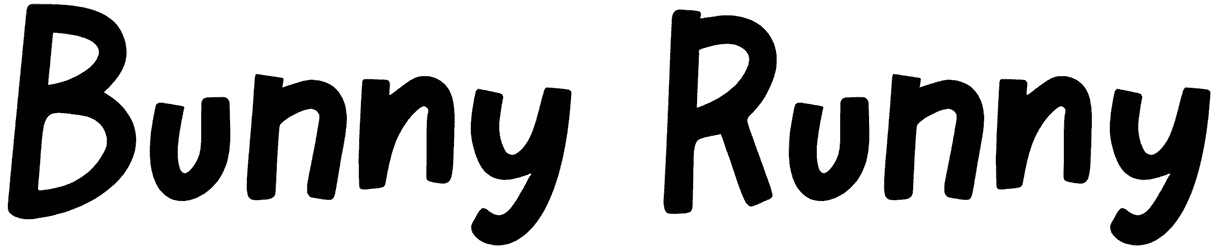
Create a playful and catchy design with a unique and fun letterform and impress your viewers. This cartoon font, with its bold and realistic letters, can capture a lot of attention, but it doesn’t cover lowercase letters. Set the Colet Spunch font on your new summer event flyer, or so on, and be cool.